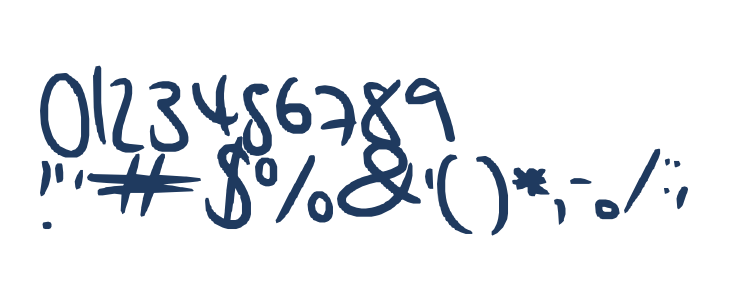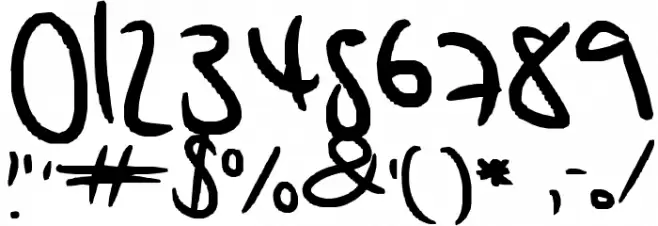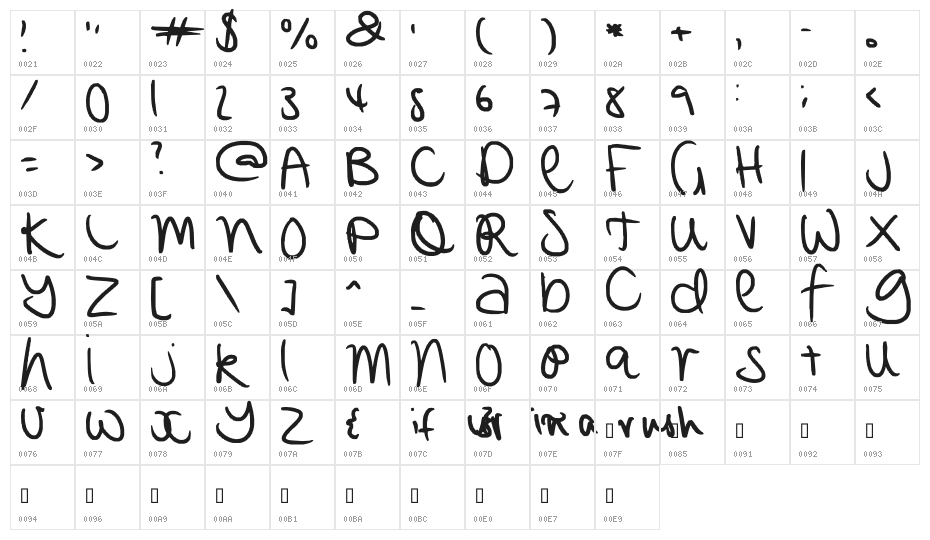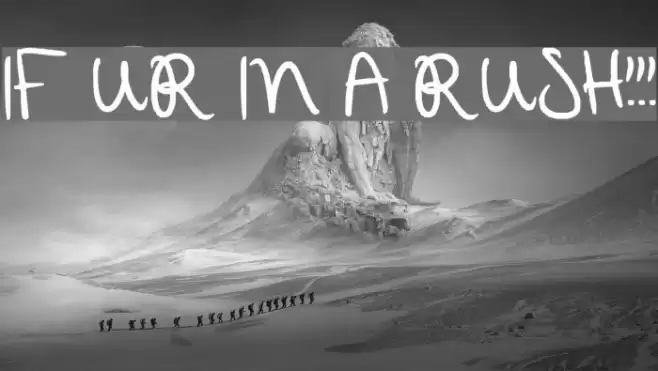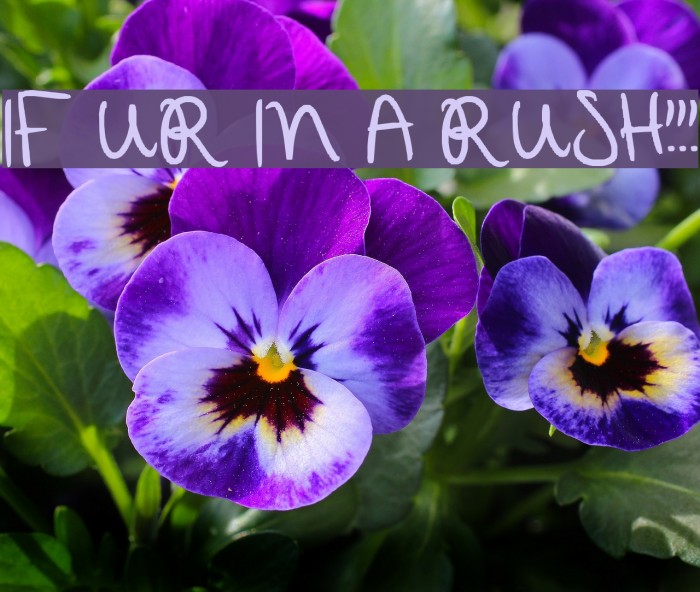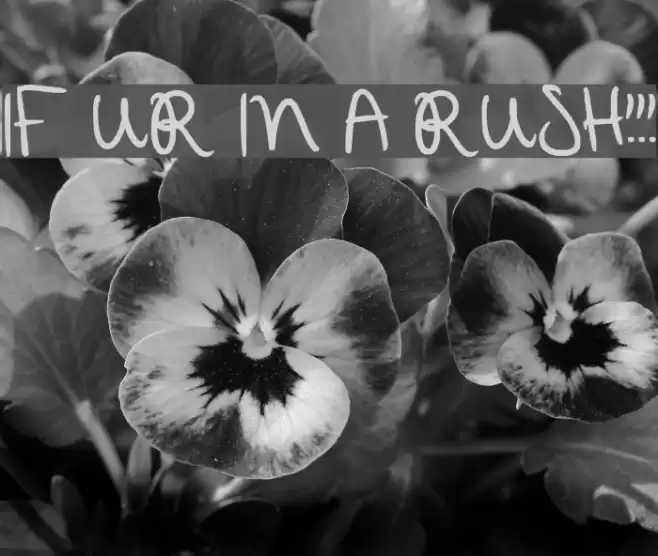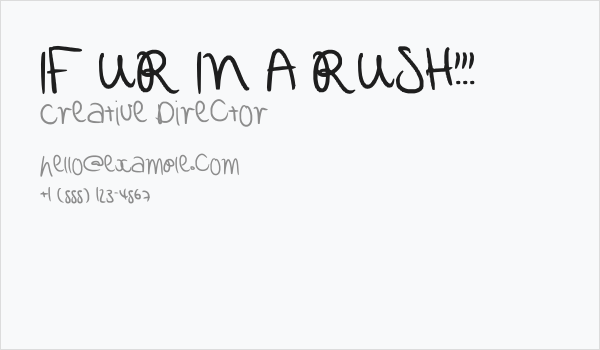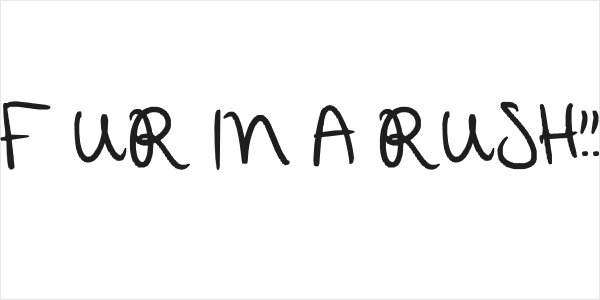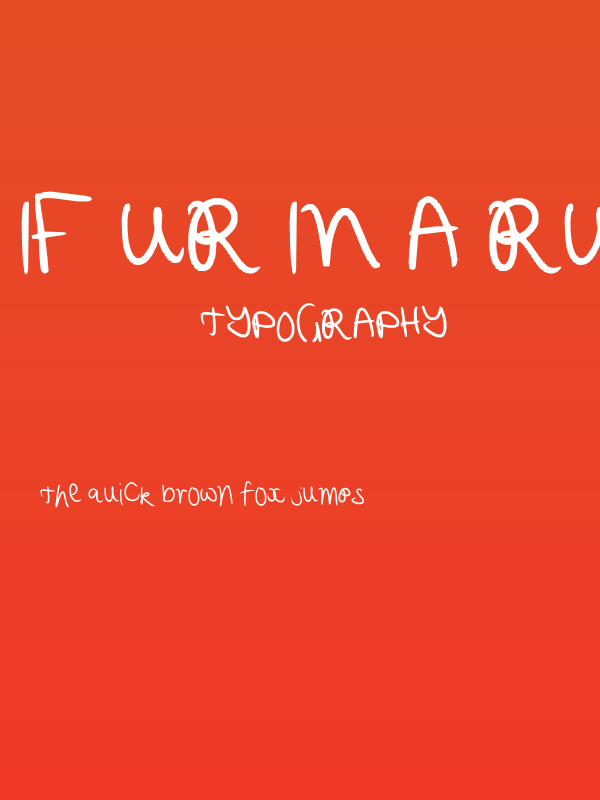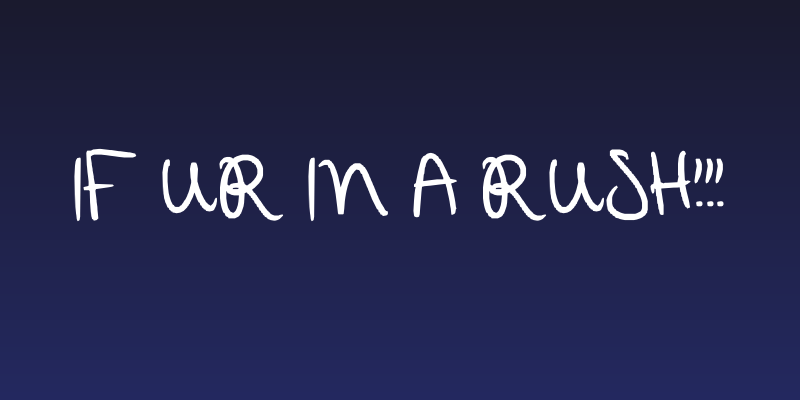
IF UR IN A RUSH!!! Font
IF UR IN A RUSH!!! Description
This font features a playful and casual handwritten style, characterized by its loose and flowing letterforms. The uppercase and lowercase letters maintain a consistent height, giving it a uniform appearance despite its informal nature. The strokes are smooth and rounded, with a slight tilt that adds to its dynamic feel. The numerals and special characters follow the same style, ensuring coherence across all characters. This font exudes a sense of spontaneity and creativity, making it ideal for projects that require a personal touch.
| Use Case | Logos, Invitations, Personal projects |
| Proposed Projects | Ideal for greeting cards, personal blogs, children's books, and creative branding projects. |